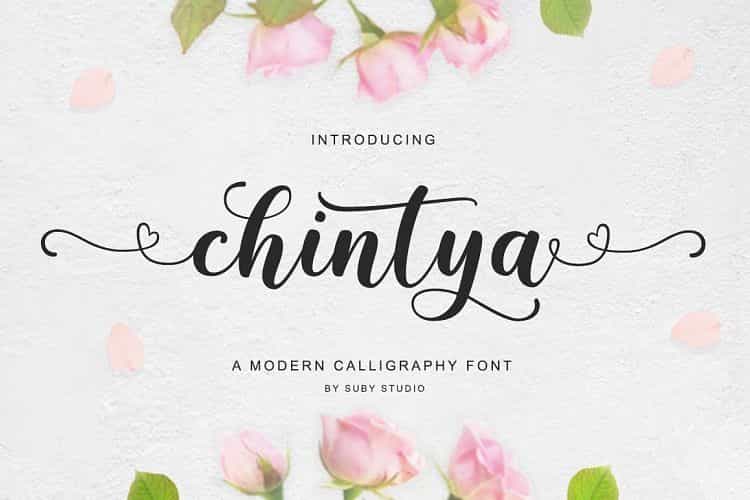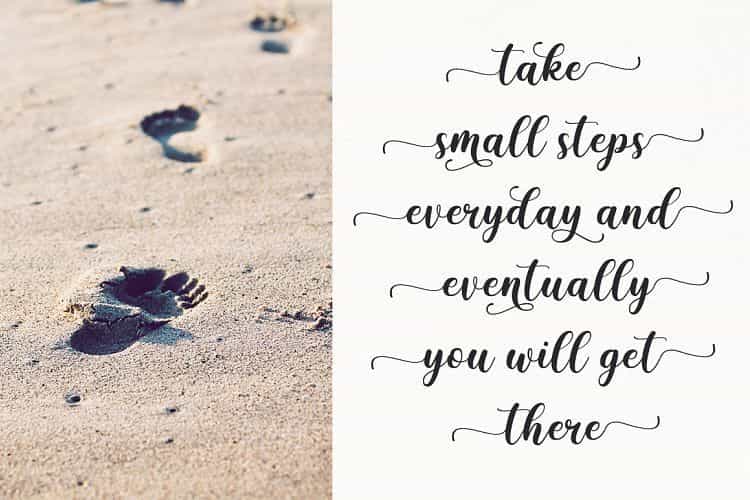
Chintya is a handwritten font with a clean, classy, and contemporary calligraphy style ideal for wedding design, invitations, greeting cards, signatures, watermarks, logos, handwritten texts, and more.